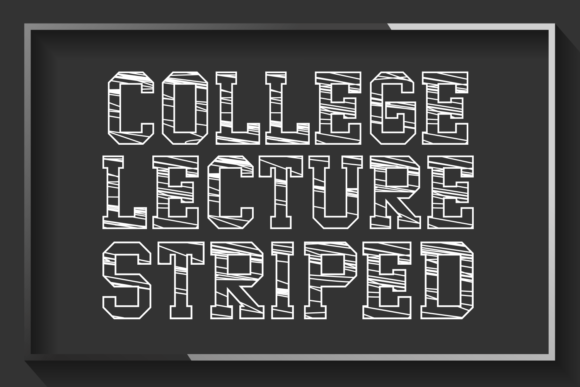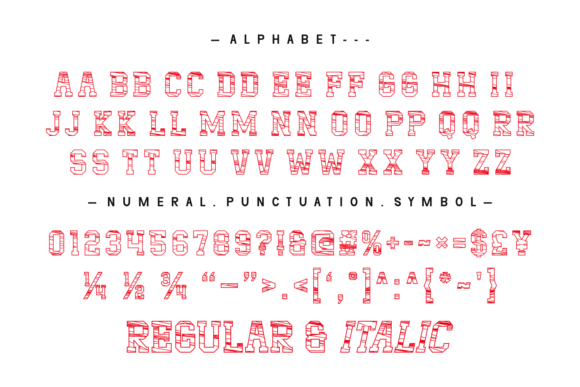
Unleash the Academic Spirit in Your Designs
Have you ever stared at a blank page, struggling to find the perfect font to convey the tone of your project? It’s a familiar creative conundrum, but what if the perfect font was just a click away? For designers looking to add a touch of classic academia to their work, College Lecture Striped Font is here to save the day.
With its bold display style and clean lines, College Lecture Striped Font brings a confident presence to any text. The distinctive stripes give it a sporty and collegiate vibe, making it ideal for headers, banners, or any project where you want to convey a sense of academic spirit. Whether you’re designing for a university publication, a educational website, or simply want to add a dash of sophistication to your branding, College Lecture Striped Font is the perfect choice.
College Lecture Striped Font Key Features
- Unique Characteristics: The striped font design is specifically created to help students stay focused and engaged during lectures, with alternating stripes of color to draw attention to key points.
- Legibility: The font is designed to be highly legible, even at smaller font sizes, making it ideal for reading large amounts of text during lectures.
- Customization: The font can be customized to fit specific color schemes and branding requirements, making it a versatile option for educational institutions.
College Lecture Striped Font Review
Overall, I think the College Lecture Striped Font is a decent choice for educational materials. Here are some of its strengths: ✨
- Eye-catching design: The striped pattern really stands out and can grab the attention of students.
- Clear typography: The font is easy to read, even in larger sizes, making it perfect for presentations or handouts.
- Neutral color scheme: The black and gray color palette is professional and won’t distract from the content.
- Limited versatility: The font may not be the best choice for other types of materials, such as business reports or marketing materials.
- Not ideal for small text: While the font is clear in larger sizes, it may become too busy or overwhelming in smaller text sizes.
Overall, I would give the College Lecture Striped Font 3.5 out of 5 stars. It’s a solid choice for educational materials, but may not be the best fit for more general use. With a bit of tweaking, it could be a great asset for creating engaging and informative content.
The College Lecture Striped Font is commonly used in educational settings, such as:
Alternatives to College Lecture Striped Font
1. Didot
Didot is a classic serif font that evokes a sense of sophistication and elegance. It’s ideal for use in high-end branding, luxury goods, and formal documents. Compared to College Lecture Striped Font, Didot is more refined and less playful, making it suitable for projects that require a sense of maturity and authority.
Q: What is the optimal font size for using College Lecture Striped Font in presentations?
The optimal font size for College Lecture Striped Font in presentations is between 24 and 48 points, depending on the screen resolution and viewing distance. A font size of 36 points is a good starting point for most presentations.